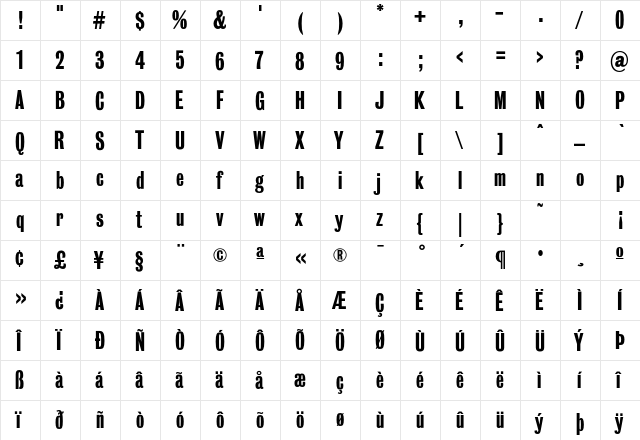
Bureau Grotesk FB One Five Regular
Design Context for Bureau Grotesk FB One Five Typeface
Bureau Grotesk FB One Five takes a clean, functional approach — its unadorned letterforms prioritise legibility and work reliably across screen and print environments.
Font Pairing: Works well alongside a characterful serif or display font that can carry the expressive load while Bureau Grotesk FB One Five handles the functional copy.
Pro Tip: Use Bureau Grotesk FB One Five for UI labels, navigation, and short-form body copy where clean legibility is the priority.